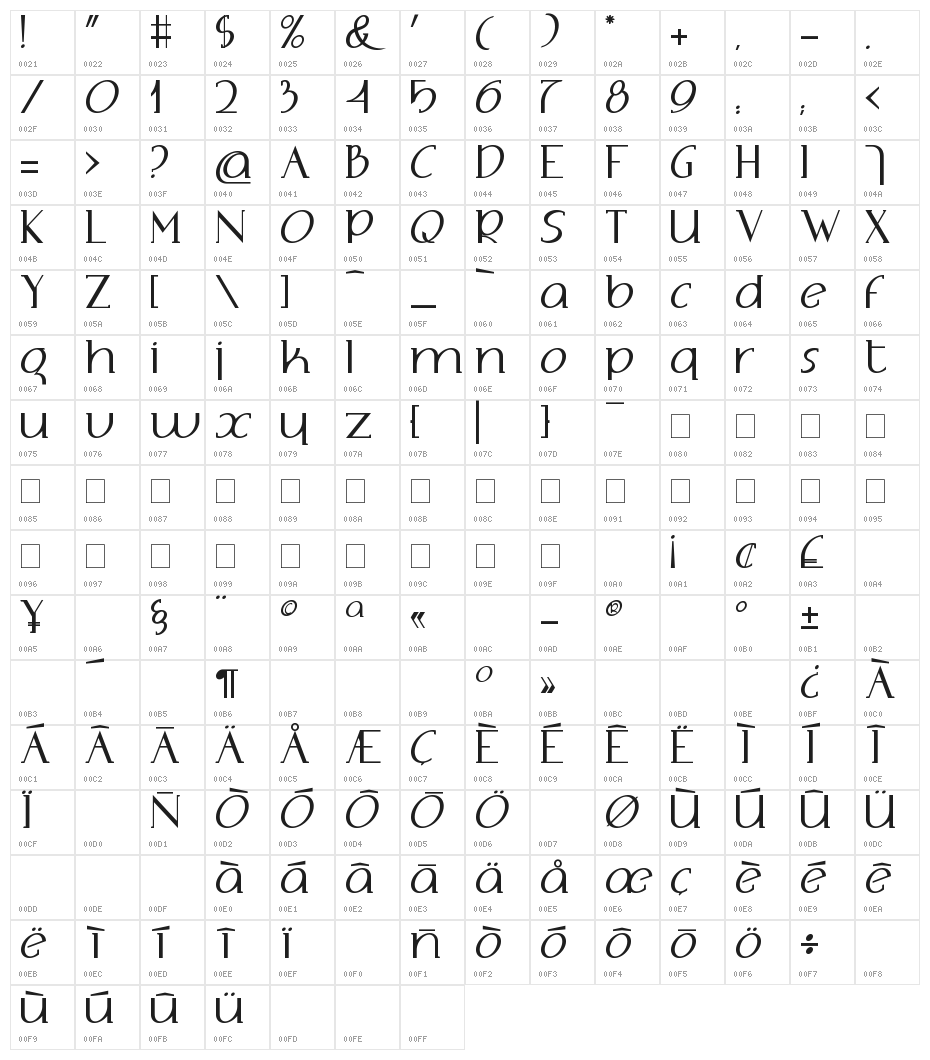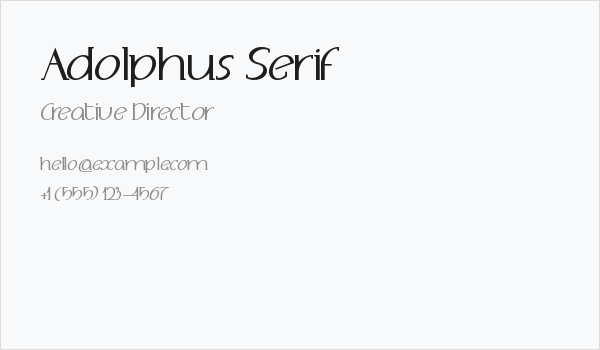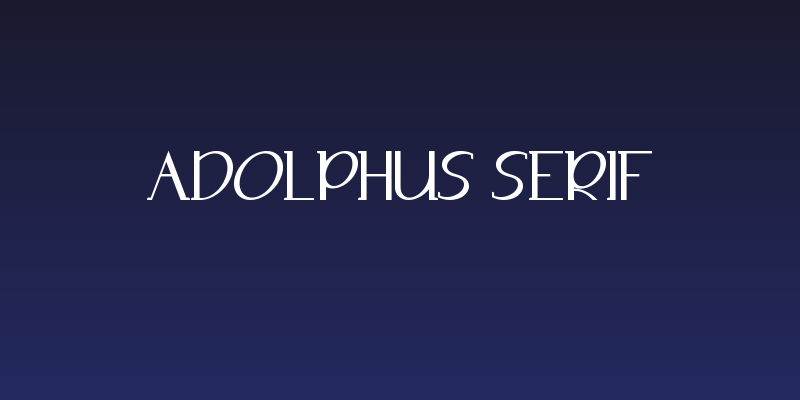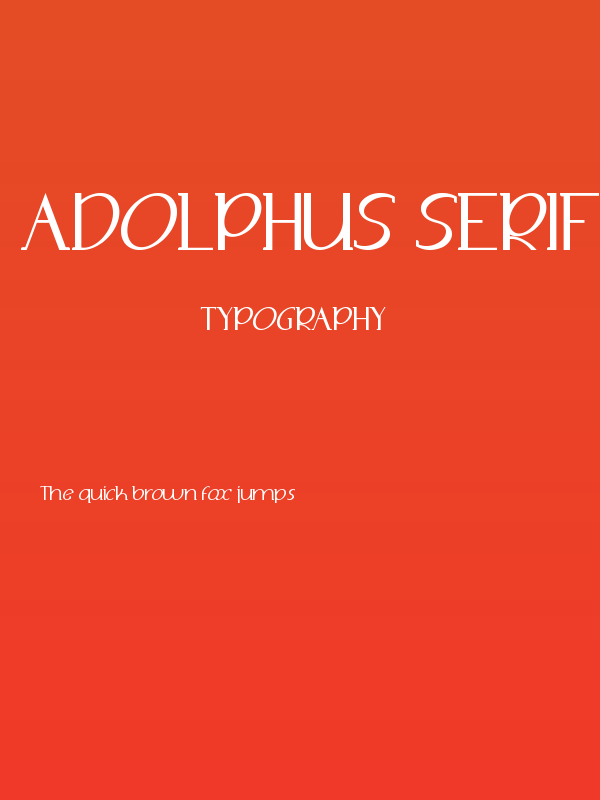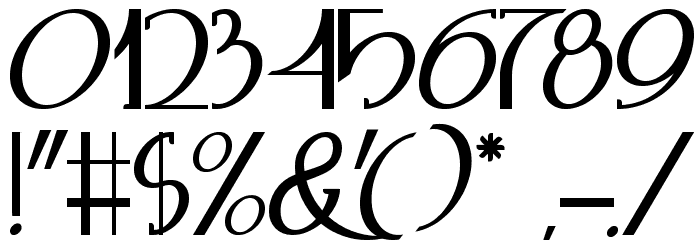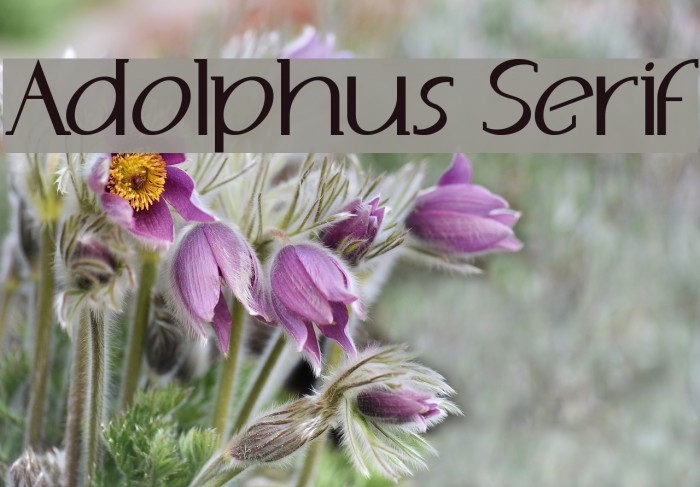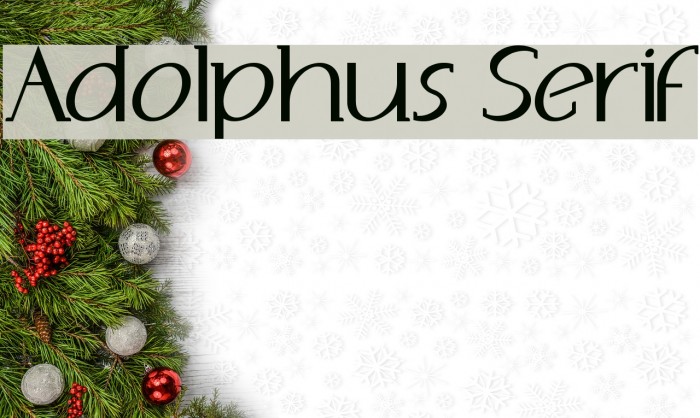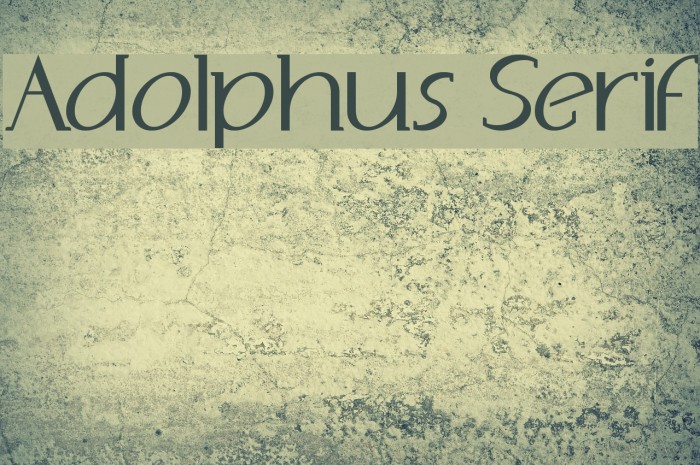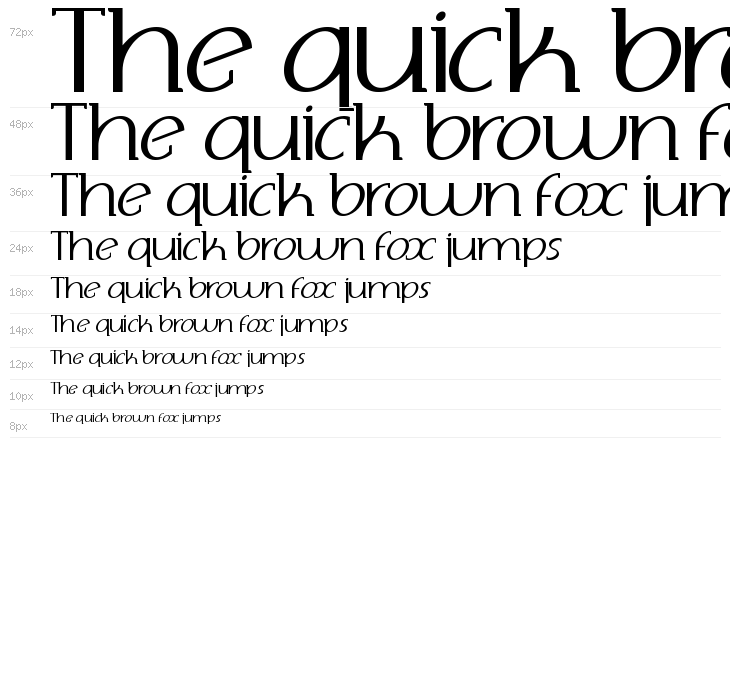
Adolphus Serif Font
Adolphus Serif Description
This font features a unique blend of modern and classic serif elements, characterized by its elegant and slightly elongated letterforms. The uppercase letters exhibit a sophisticated flair with sharp serifs and subtle curves, while the lowercase letters maintain a consistent style with a touch of playfulness. The numerals are distinct and bold, complementing the overall aesthetic. Special characters are crafted with precision, adding to the font's versatility. This typeface is ideal for projects that require a touch of elegance and sophistication.